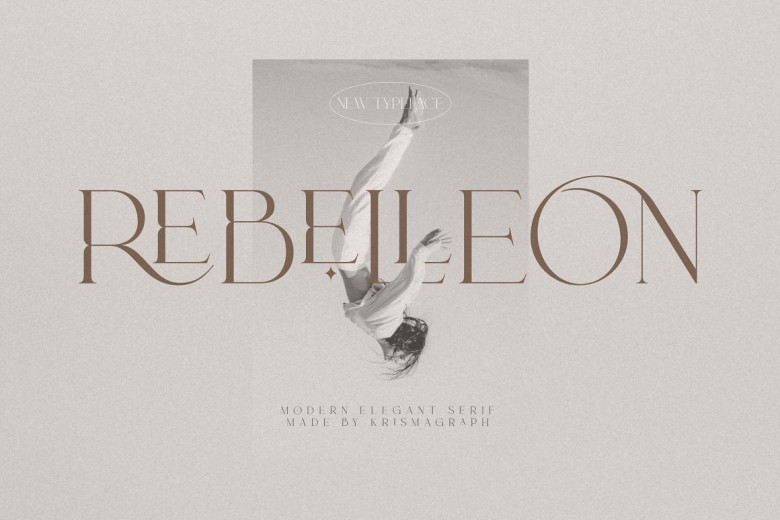
Rebelleon Font
Rebelleon is an elegant, modern serif font with an epic ligature, perfect for body text or quotes in layout designs or to enhance logos. Soft curves combined with high contrast glyphs give this font both masculine and feminine traits.
Soft corners paired with high contrast glyphs give this font its masculine and feminine characteristics – ideal for layout designs for body copy or quotes as well as distinctively distinguishing your logo!
Rebelleon Serif Font